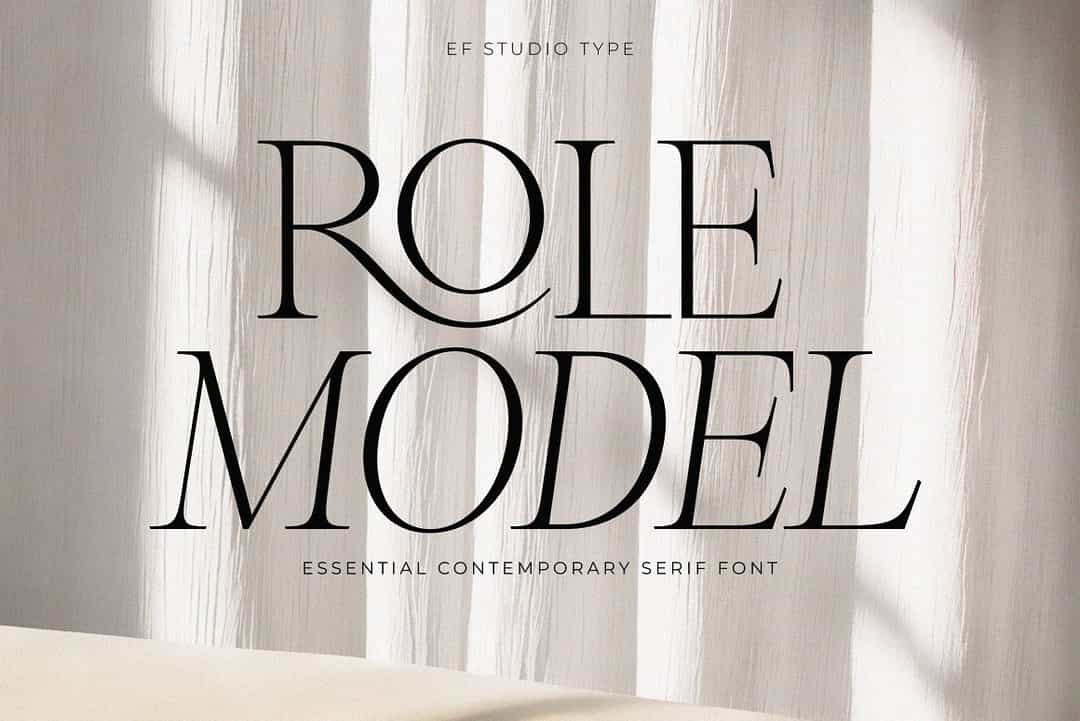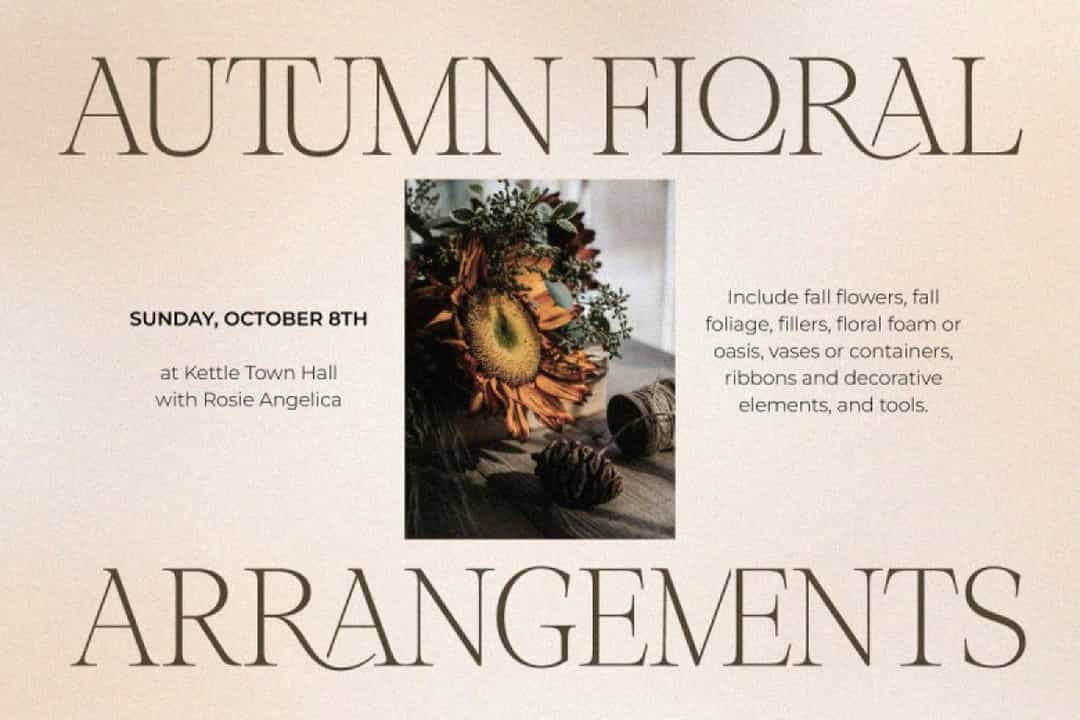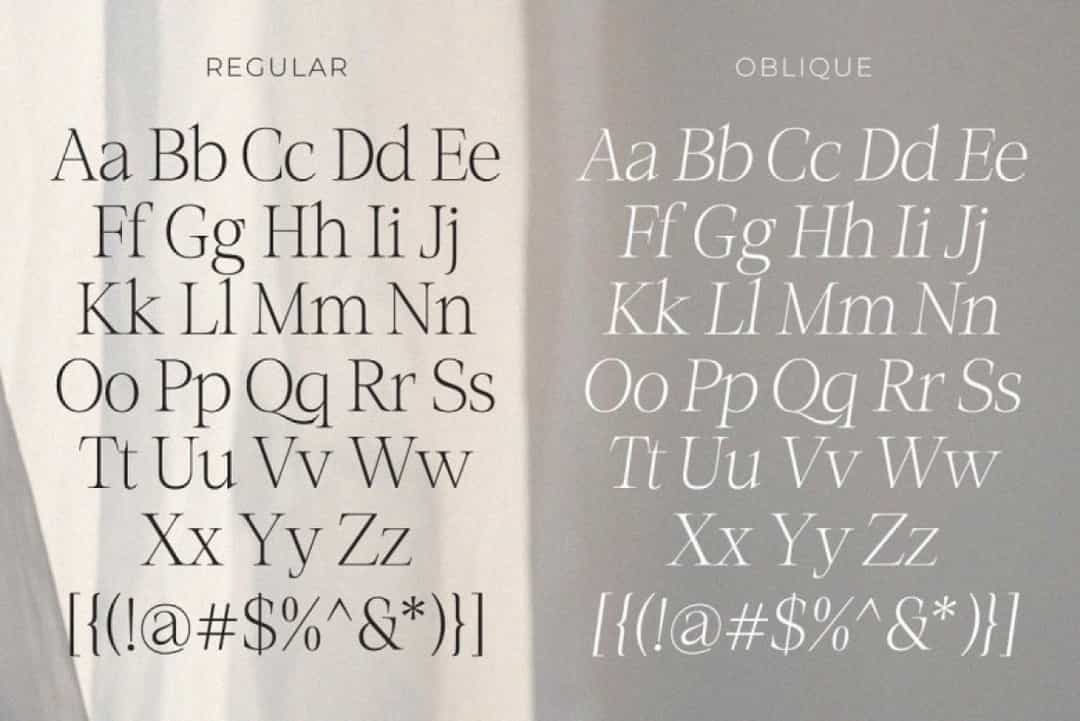
Role Model is a classic modern serif typeface featuring smooth edges for an up-to-date aesthetic. Designed to be flexible and integrate easily into many design software packages ranging from digital platforms to printing materials, Role Model can seamlessly accommodate many uses across platforms and materials.